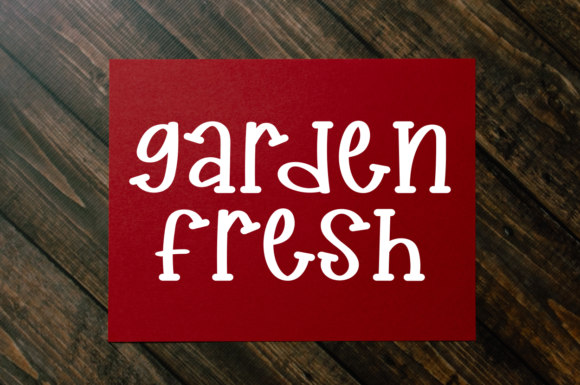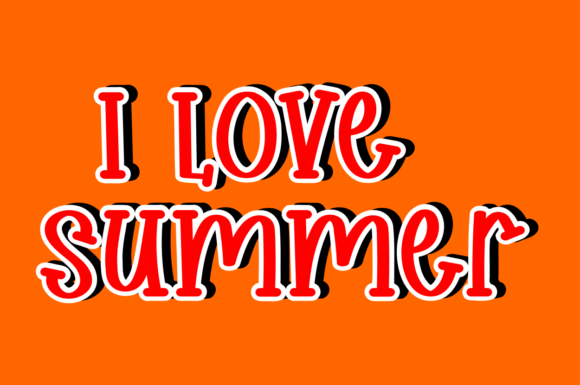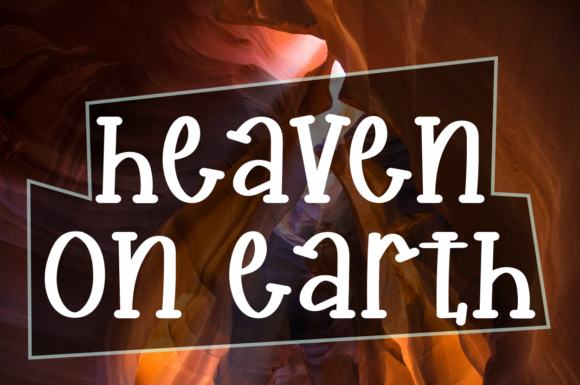
The Perfect Font to Brighten Up Your Designs
There’s nothing quite like that moment when a creative idea strikes, and you can’t wait to bring it to life. You’re brainstorming, sketching, and experimenting with different colors and typography. And then, it happens – you stumble upon the perfect font that elevates your design from good to great. For many designers, this moment is a game-changer.
Enter the Happy Ballon Font, a charming display font that’s sure to put a smile on your face. This whimsical and quirky font is designed to add a touch of personality to your projects, making it a valuable addition to any designer’s toolkit. Whether you’re working on a branding project, a social media campaign, or a children’s book, Happy Ballon Font is the perfect choice to bring some joy and creativity to your designs.
Key Features of Happy Ballon Font
- Font Family: Happy Ballon is a unique, handwritten font with a playful and whimsical feel.
- Size: The font family includes multiple weights, ranging from Light to Extra Bold, allowing for a wide range of design possibilities.
- Resolution: Optimized for high-resolution displays, making it perfect for use in digital design projects.
- Unique Characteristics: Happy Ballon features a distinctive, hand-drawn style with irregular letterforms and expressive connections between letters.
- Character Count: Includes a large character set, including uppercase and lowercase letters, numbers, punctuation marks, and special characters.
Designer Review: Happy Balloon Font
Happy Balloon Font is an adorable, hand-drawn typeface that’s perfect for adding a playful touch to your designs. Here’s what I love about it:
- ✨ Unique and whimsical design that’s sure to stand out
- ✨ Perfect for children’s books, party invitations, and other fun projects
- ✨ Highly customizable with a wide range of font weights and styles
- ⚠️ Limited legibility at small font sizes, which can make it difficult to read
- ⚠️ Not suitable for formal or professional projects, as it may come across as too playful
- ⚠️ Can be overwhelming if used extensively throughout a design
Overall, I think Happy Balloon Font is a great addition to any designer’s toolkit. It’s perfect for adding a touch of whimsy and fun to your designs, but be sure to use it judiciously to avoid overwhelming your audience. With a little creativity and restraint, Happy Balloon Font can be a real showstopper.
Happy Ballon Font Application Guide
Getting the Most Out of Happy Ballon Font
To get the most out of Happy Ballon Font, consider the following tips:
- Use it for playful and creative designs.
- Combine it with bold or italic text for emphasis.
- Experiment with different font sizes and colors.
Happy Ballon Font is commonly used for:
- Children’s birthday invitations.
- Playful social media posts.
- Fun and creative marketing materials.
Alternatives to Happy Ballon Font
The Great Vibes Font is a modern, elegant script font that is perfect for creating a playful yet sophisticated look. It is ideal for use in wedding invitations, branding materials, and social media graphics. Compared to Happy Ballon Font, Great Vibes Font has a more refined and polished feel, making it suitable for a wider range of design applications.
The Carolyna Pro Font is a beautiful, handwritten font that is great for creating a whimsical and romantic atmosphere. It is perfect for use in invitations, quotes, and social media graphics. Compared to Happy Ballon Font, Carolyna Pro Font has a more delicate and feminine touch, making it ideal for designs that require a touch of elegance.
The Cream Soda Font is a fun, cursive font that is perfect for creating a playful and youthful look. It is ideal for use in social media graphics, blog posts, and advertisements. Compared to Happy Ballon Font, Cream Soda Font has a more casual and laid-back feel, making it suitable for designs that require a relaxed and friendly tone.
Q: What is the recommended font size for the Happy Ballon Font?
The recommended font size for the Happy Ballon Font varies depending on the intended use. For body text, we recommend using font sizes between 12-14 points. For headings and titles, you can use larger font sizes, such as 18-24 points. Remember to adjust the font size according to your design’s specific requirements and the target audience’s reading comfort.